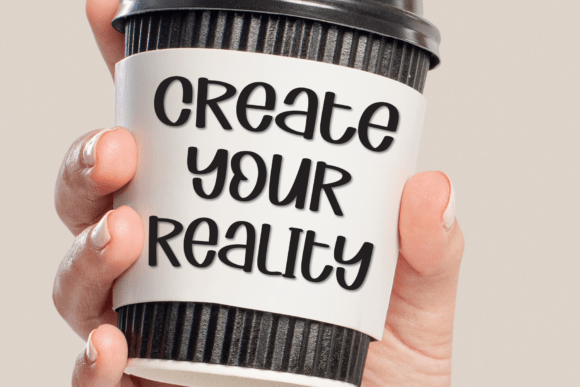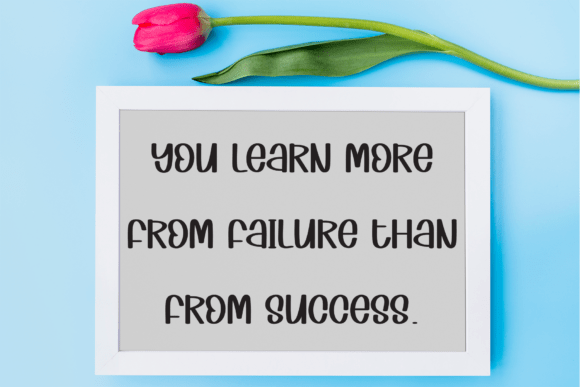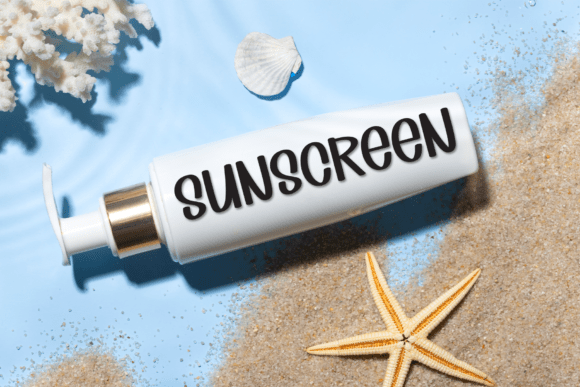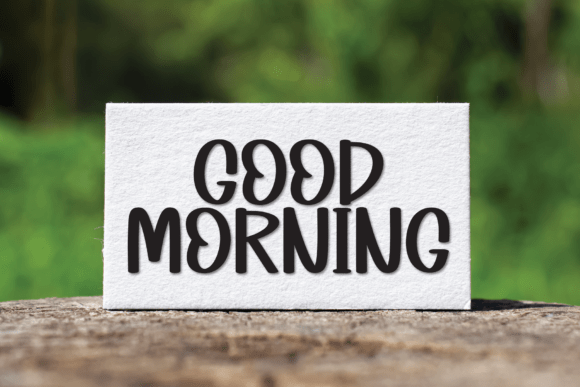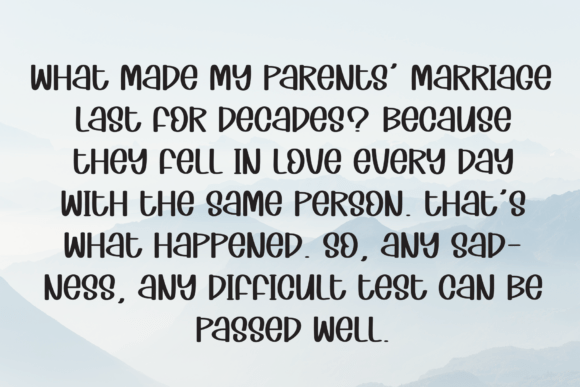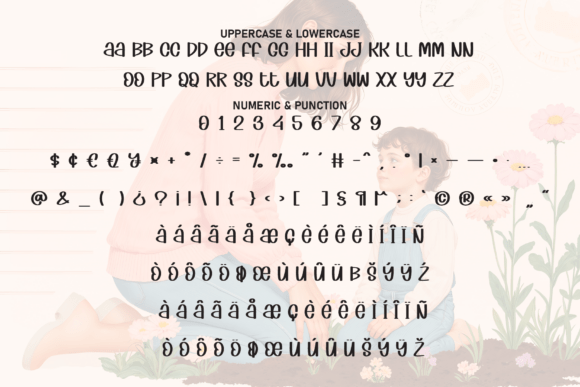
Introducing Design Mother Font: The Perfect Blend of Warmth and Clarity
In the world of typography, a well-designed font can make all the difference in bringing your creative projects to life. For designers and crafters looking for a font that exudes warmth, clarity, and approachability, look no further than Design Mother Font. This casual and neat display font is specifically designed to elevate your branding, headlines, and everyday designs with its clean structure and inviting style.
The Characteristics of Design Mother Font
Design Mother Font boasts a range of characteristics that make it an ideal choice for designers and crafters. Its balanced letterforms offer exceptional readability and charm, making every message feel genuine and engaging. The font’s clean structure and approachable style ensure that it suits a wide range of projects, from branding and advertising to packaging and digital media.
What Makes Design Mother Font Stand Out
So, what sets Design Mother Font apart from other fonts on the market? Here are just a few reasons why designers and crafters are falling in love with this versatile font:
- Warmth and Clarity: Design Mother Font is designed to bring a sense of warmth and clarity to your projects. Its clean lines and balanced letterforms make it easy to read and understand, even at smaller sizes.
- Approachable Style: The font’s approachable style makes it perfect for designers and crafters who want to create a friendly and inviting atmosphere in their projects.
- Versatility: Design Mother Font is incredibly versatile, making it suitable for a wide range of projects, from branding and headlines to packaging and digital media.
- Readability: The font’s balanced letterforms and clean structure ensure that it is highly readable, even at smaller sizes.
How to Use Design Mother Font in Your Projects
Design Mother Font is an incredibly versatile font that can be used in a wide range of projects. Here are just a few ideas to get you started:
- Branding: Use Design Mother Font to create a warm and inviting brand identity that resonates with your target audience.
- Headlines: The font’s clean structure and approachable style make it perfect for headlines and titles.
- Packaging: Design Mother Font is a great choice for packaging design, adding a touch of warmth and personality to your products.
- Digital Media: The font’s readability and charm make it ideal for digital media, including social media graphics, blog posts, and website headers.
Tips for Getting the Most Out of Design Mother Font
To get the most out of Design Mother Font, here are a few tips to keep in mind:
- Experiment with Different Sizes: Design Mother Font is highly readable at a range of sizes, so don’t be afraid to experiment with different sizes to find the one that works best for your project.
- Pair it with Other Fonts: Design Mother Font pairs well with a range of other fonts, so don’t be afraid to get creative and try out different combinations.
- Use it Consistently: To create a cohesive look and feel, use Design Mother Font consistently throughout your project.
In conclusion, Design Mother Font is a versatile and highly effective font that is perfect for designers and crafters looking to add a touch of warmth and clarity to their projects. With its clean structure, approachable style, and balanced letterforms, this font is sure to become a go-to choice for a wide range of creative projects. Whether you’re working on branding, headlines, packaging, or digital media, Design Mother Font is an excellent choice.